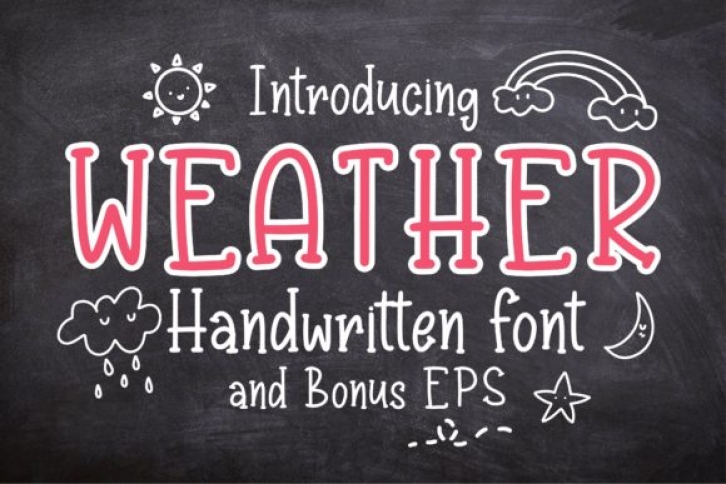
Weather is a cute and casual display font. It comes with beautiful doodles! Get creative with its unique playfulness, and use it to brighten up all your upcoming projects!